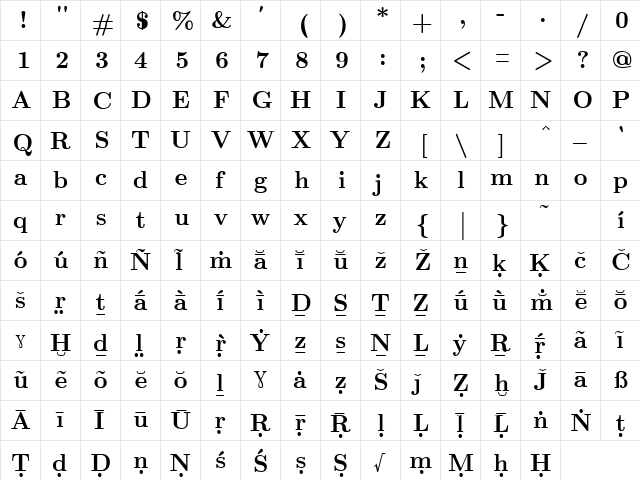
Washington Indic Roman Bold
Design Context for Washington Indic Roman Typeface
Washington Indic Roman is a composed and adaptable typeface that performs quietly and consistently across a wide range of design contexts. The heavy weight commands attention and anchors typographic hierarchies.